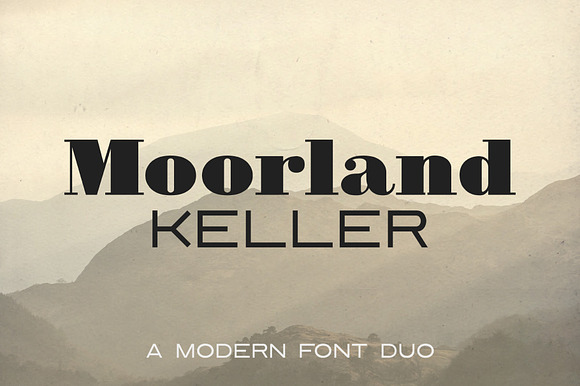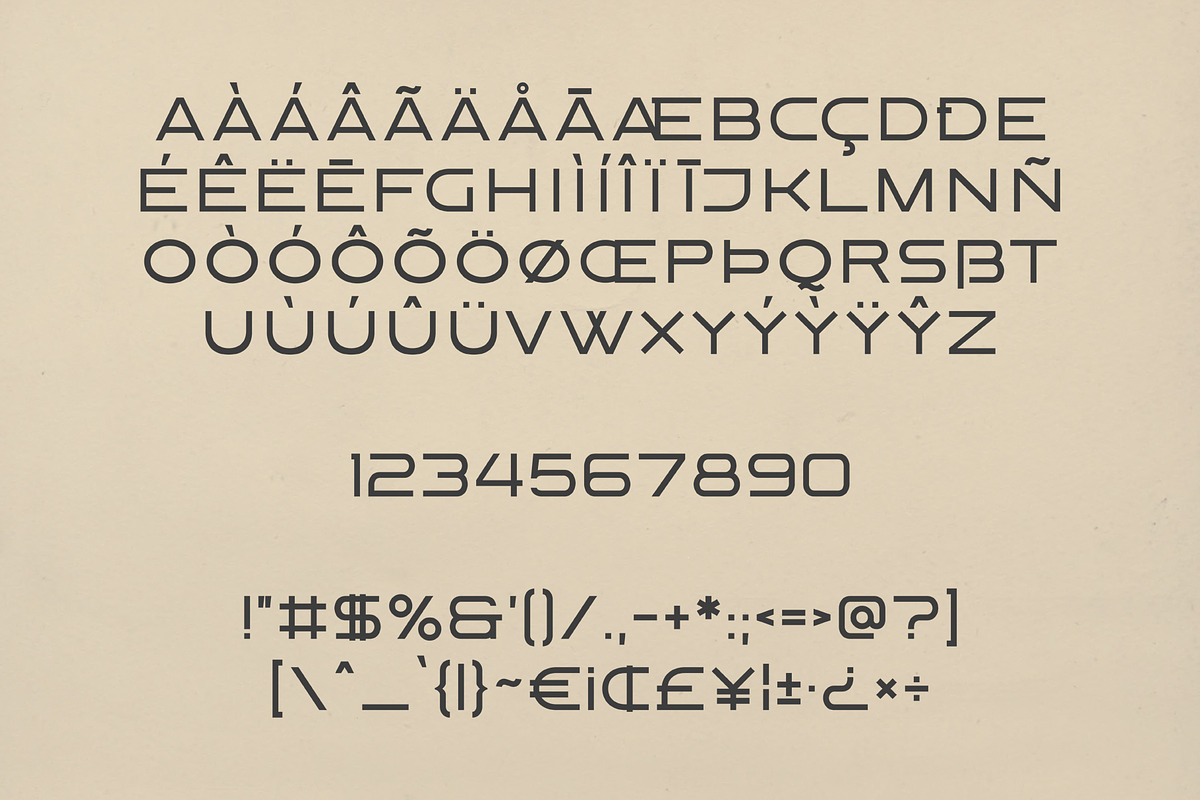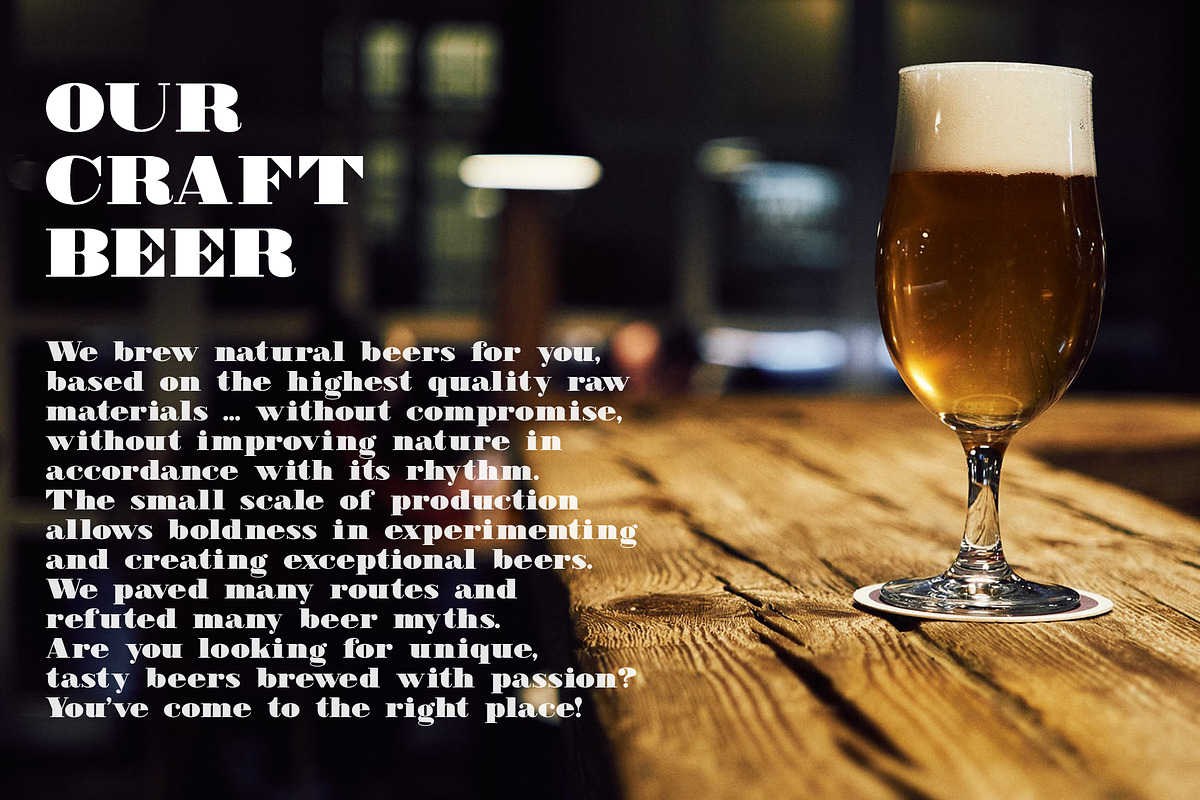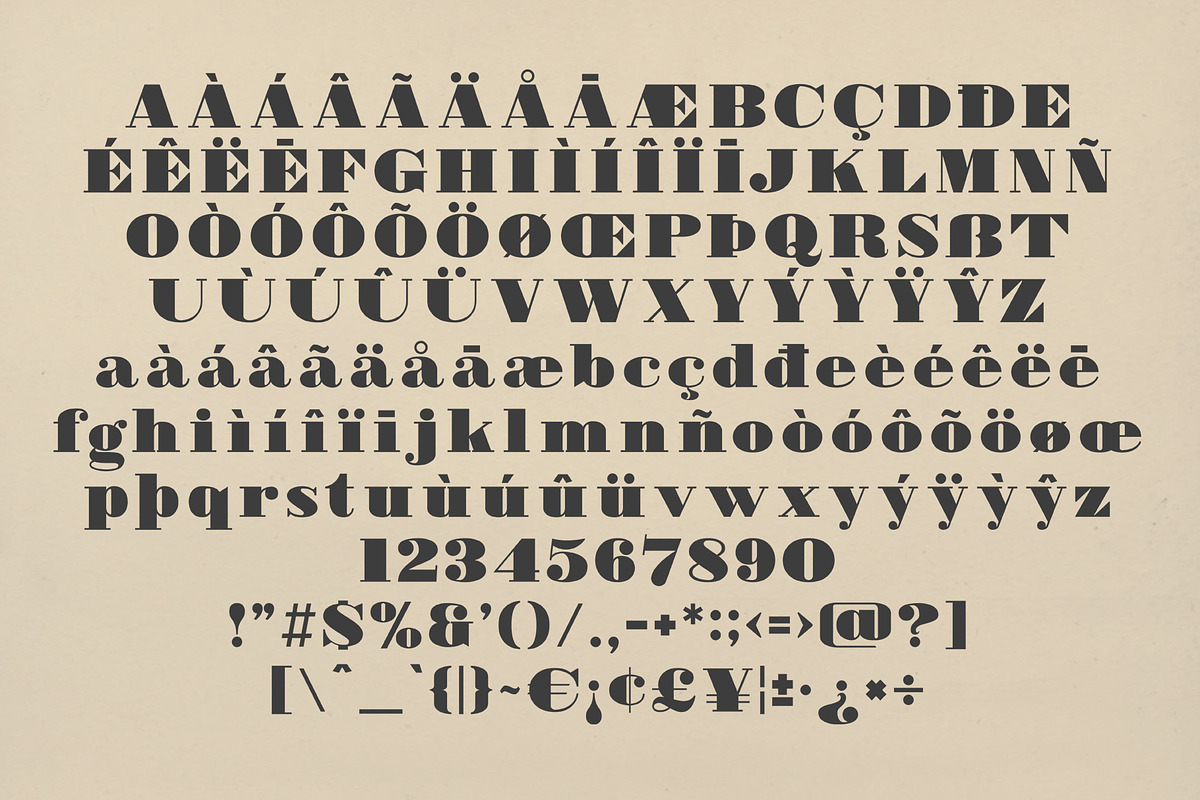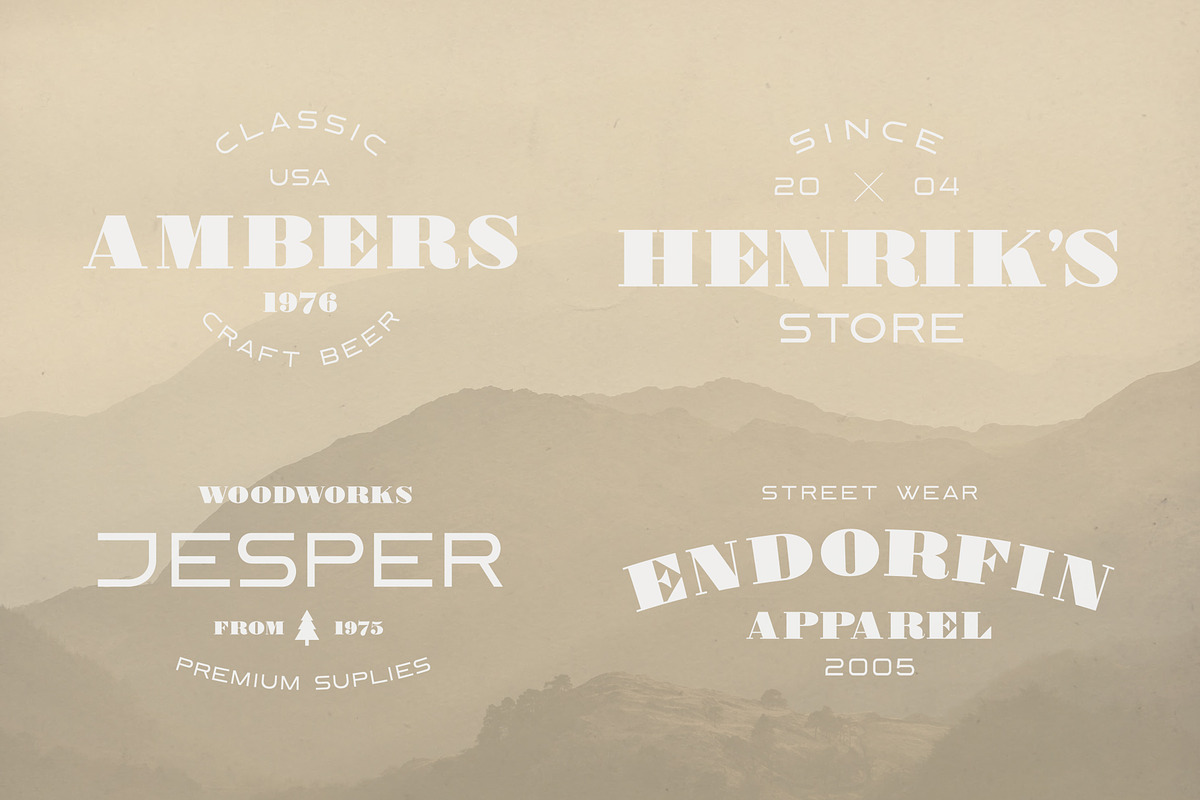
Moorland Keller - Headline Font Duo
Moorland Keller is a modern font duo where Moorland is a modern retro serif bold typeface and Keller - display, modern sans font. Moorland is inspired by bold serif typography used on posters, matchboxes etc. Keller is inspired by modernism style. Both fonts go great together and are perfect for logo, editorial, app, web design and more!